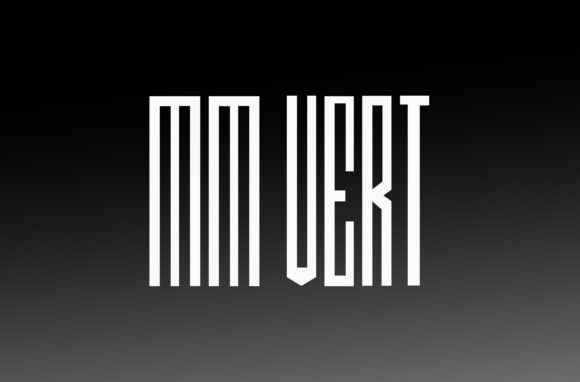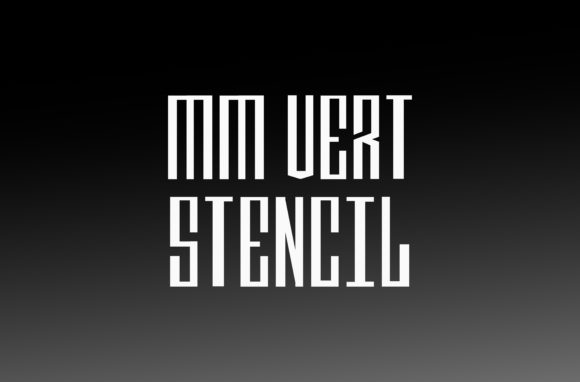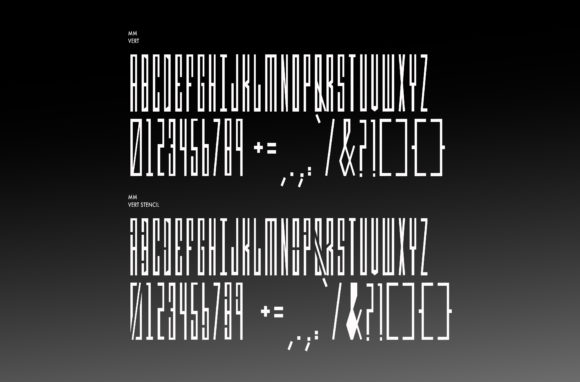
MM Vert Font
About the MM Vert Font
Unleash your creativity with MM Vert Font, a versatile font perfect for a wide range of applications. MM Vert is a modern display font, featuring a bold and stencil version. Inspired by BMX half-pipes, constructivist posters, and urban skylines. MM Vert is a great option for your creative projects that demand attention, and an industrial vibe would be perfect.
MM Vert excels in headlines, logos, and short, impactful displays. Its strong geometry works particularly well for posters, packaging for edgy products, and branding for companies with a bold, industrial aesthetic. Avoid using it for body text or lengthy paragraphs; its high contrast and weight make it unsuitable for extended reading.
Consider pairing MM Vert with a clean sans-serif like Open Sans for a balanced contrast, or a more geometric sans-serif like Futura for a cohesive modern feel. For a touch of refined ruggedness, a slightly distressed serif like Playfair Display could provide an interesting counterpoint.
The font’s overall personality is bold and assertive, conveying a sense of modern energy and industrial strength. It’s ideal for projects needing a strong visual presence and a slightly rebellious feel.